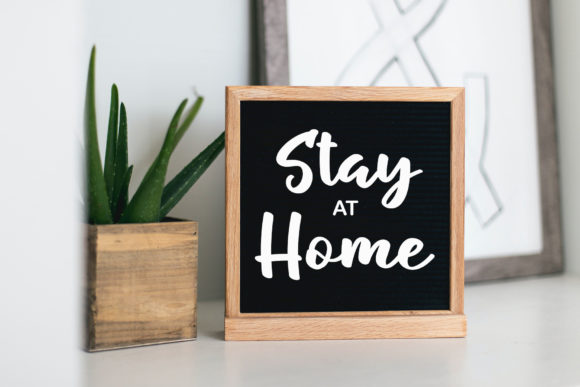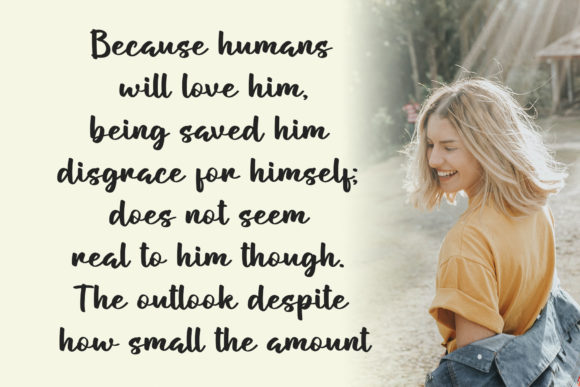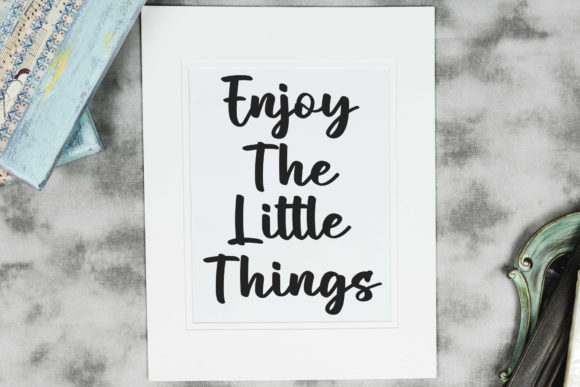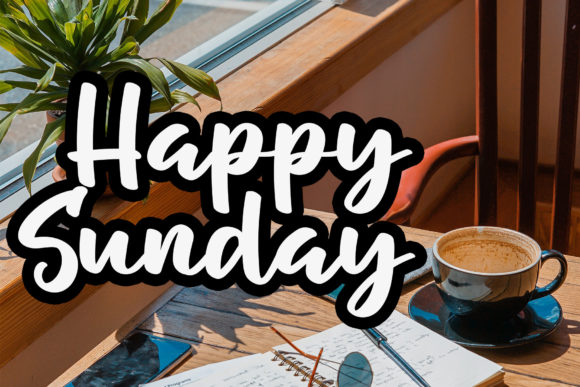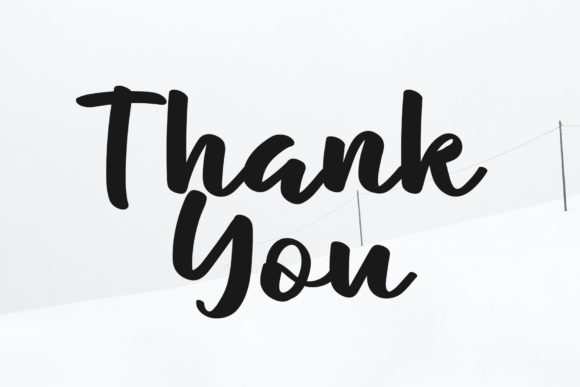
About Highlands Font
**Highlands Font: Romantic and Sweet Calligraphic Elegance**
Introducing *Highlands Font*, a romantic and sweet calligraphy typeface where characters dance gracefully along the baseline. Designed to add a luxurious spark to your design projects, this font is PUA encoded, providing easy access to a delightful array of glyphs and ligatures.
The charm of *Highlands* lies in its romantic and sweet calligraphic style, where each character is crafted to dance elegantly along the baseline. More than just a typeface, it’s a statement of modern elegance that brings a touch of romance to your creative endeavors.
Whether you’re working on invitations, branding, or any project that requires a romantic and sweet aesthetic, *Highlands Font* adapts with grace. Its calligraphic elegance adds a luxurious touch, making your designs stand out with a hint of timeless sophistication.
In summary, *Highlands Font* is a celebration of romance and sweet calligraphic elegance. Let it be the choice that adds a luxurious spark to your creative projects, providing you with the freedom to access a variety of amazing glyphs and ligatures, ensuring your designs captivate and exude a touch of opulent charm.